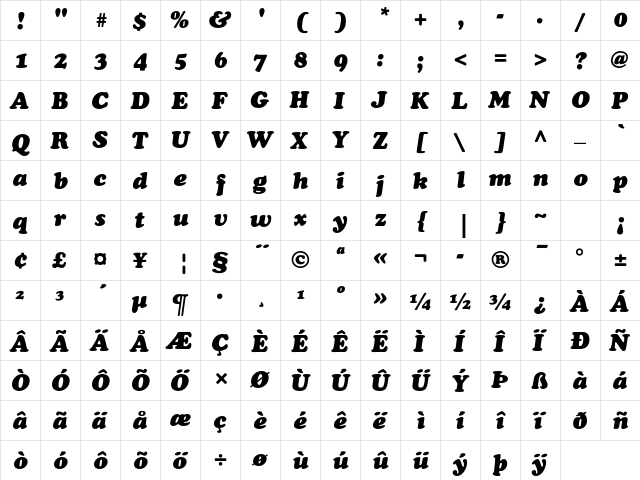
Cooper Std Black Italic Font Preview
Cooper Std Black Italic
Cooper Std Black Italic Font Details
| Style | Black Italic |
| Designer | Oswald Bruce Cooper |
Design Context for Cooper Std Typeface
Cooper Std is a composed and adaptable typeface that performs quietly and consistently across a wide range of design contexts. Its italic angle brings a sense of urgency and motion to the letterforms.
Pro Tip: Use Cooper Std for emphasis, pull quotes, and subheadings where its slanted energy can add rhythm to the layout.